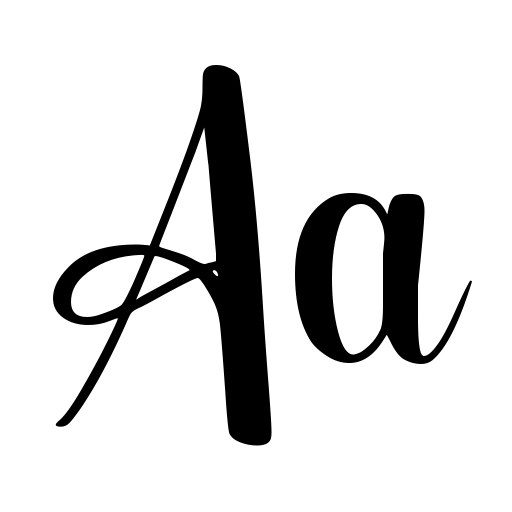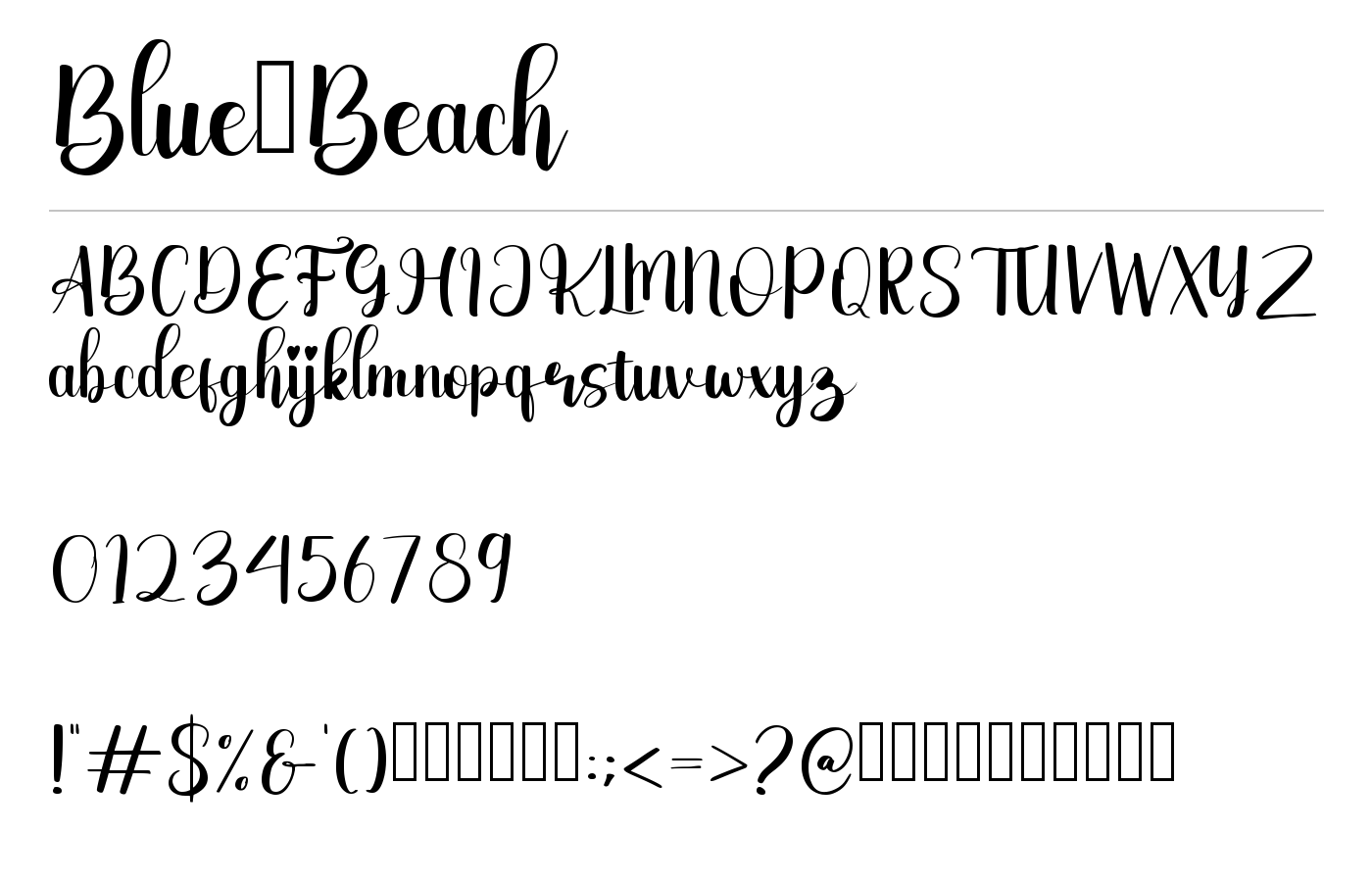
Blue Beach is a charming script font with a lively, hand-lettered feel characterized by smooth, flowing strokes and playful letterforms. Its medium weight and slightly condensed width, along with unique details like double-story lowercase "g" and lively uppercase letters, make it ideal for creative, feminine branding, invitations, and casual headlines where a friendly, stylish touch is desired. This font works best in contexts that call for a personal, whimsical vibe, such as boutique logos, greeting cards, and lifestyle blogs.
Blue_Beach Font